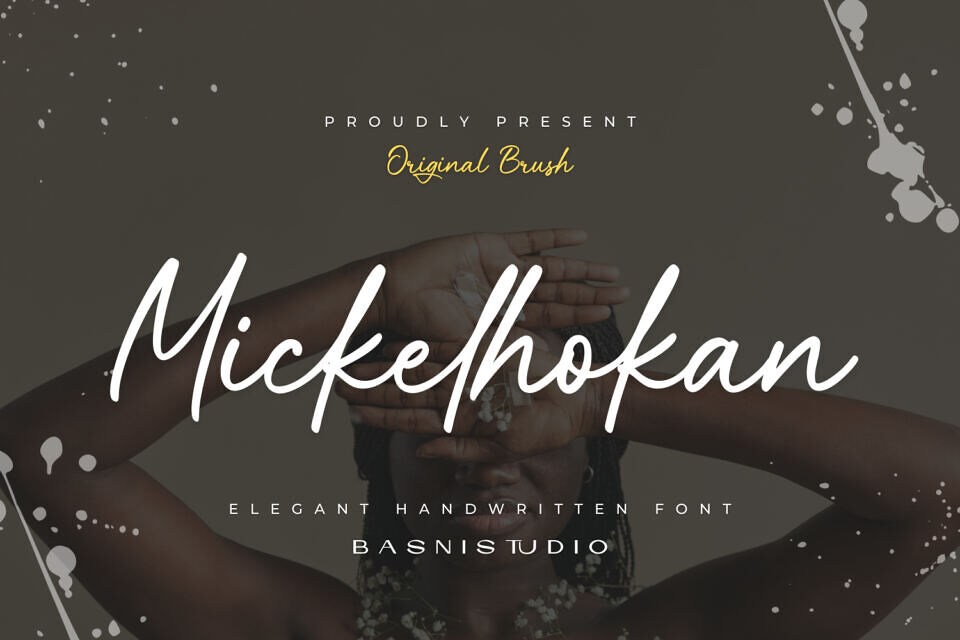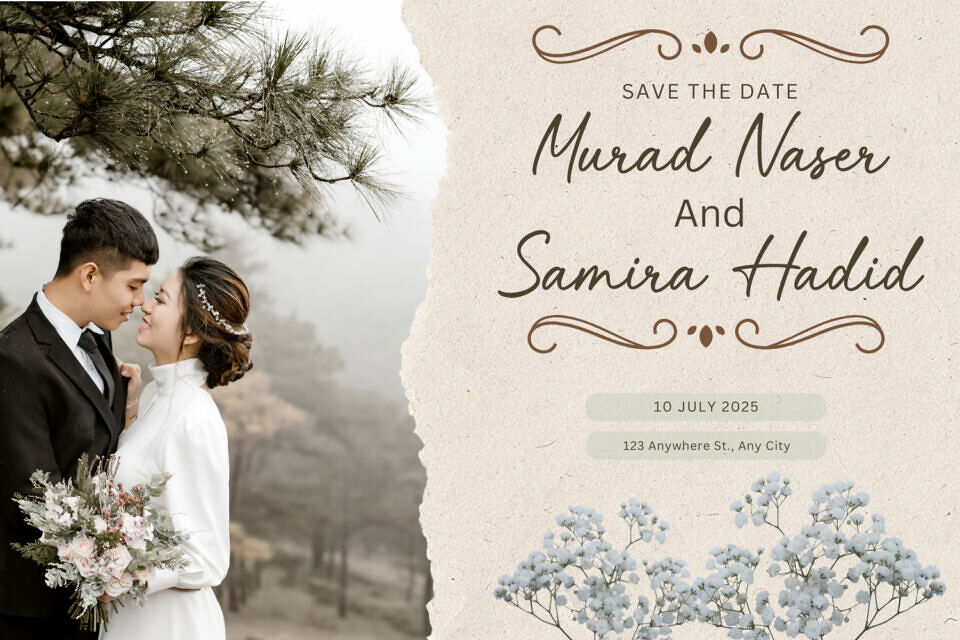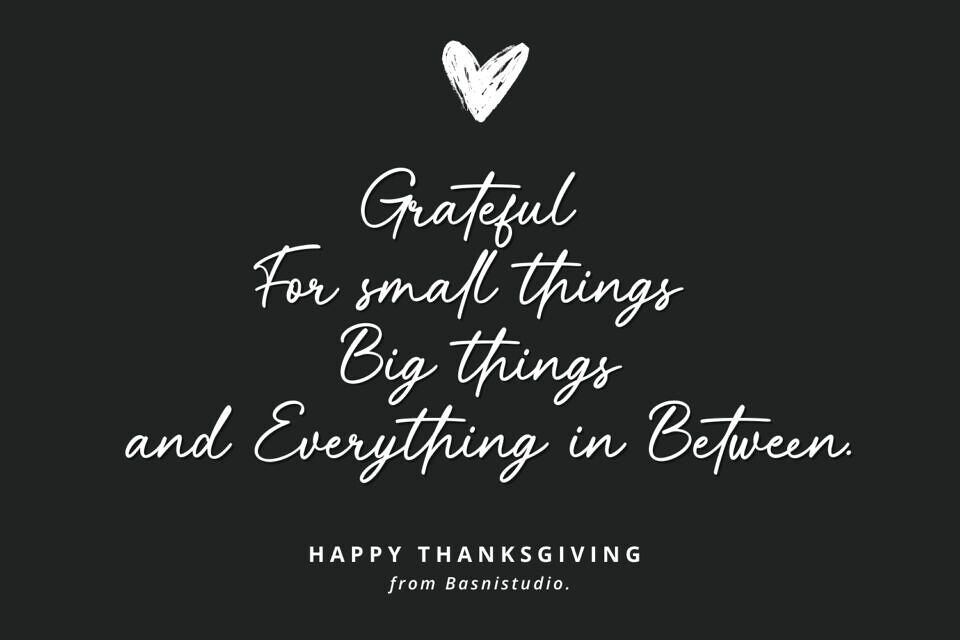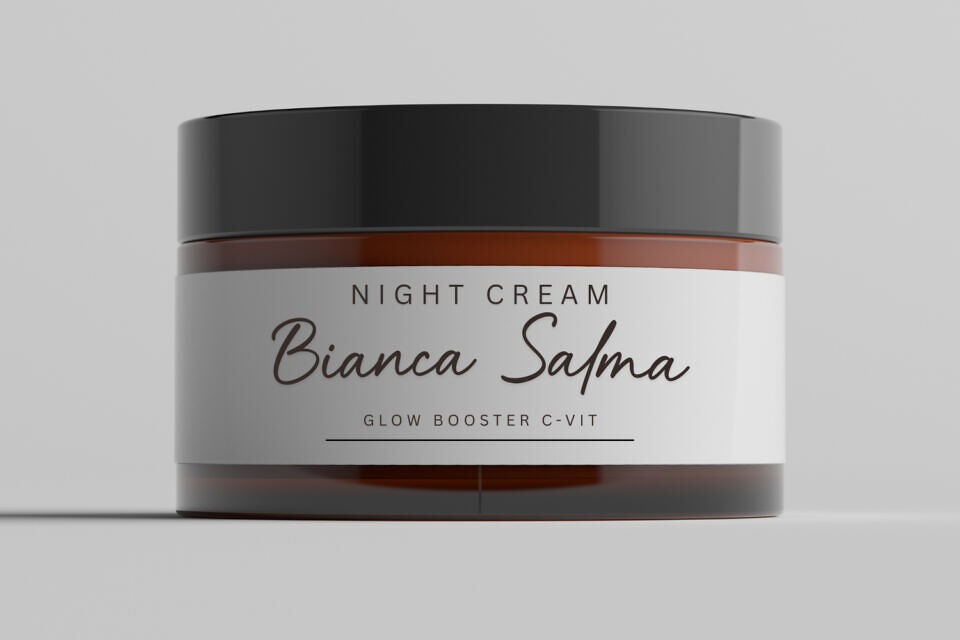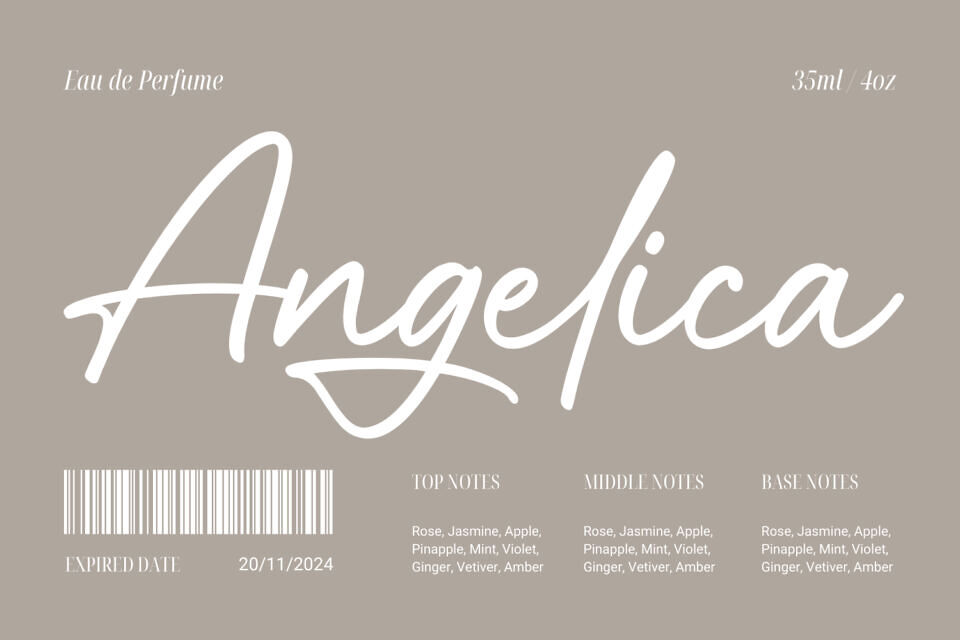
Mickelhokan Font
Introducing Mickelhokan, an elegant handwritten font crafted with authentic pen strokes for a sleek look and casual touch for everything from branding and social media to invitations and packaging.
Whether you’re building a powerful brand identity or crafting a standout design, Mickelhokan a Handwritting Font Created with real pen strokes for a Elegant  look gives you the creative edge you need.